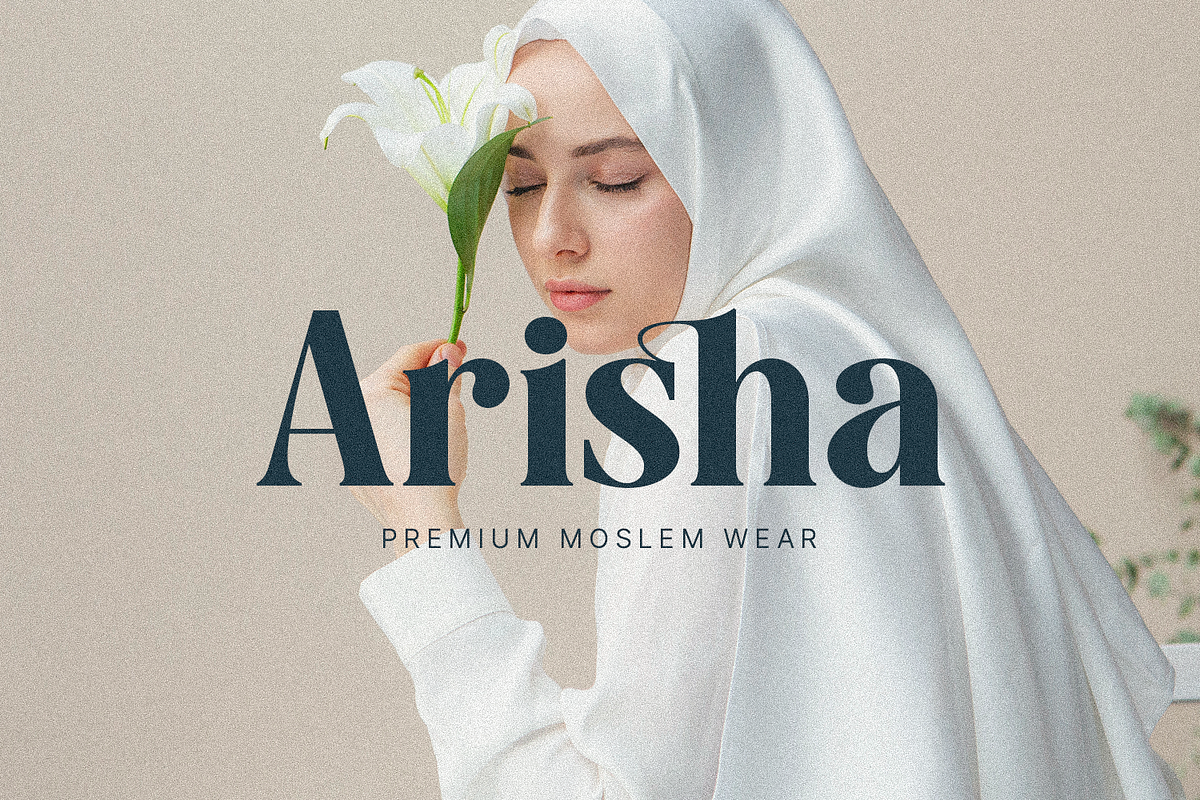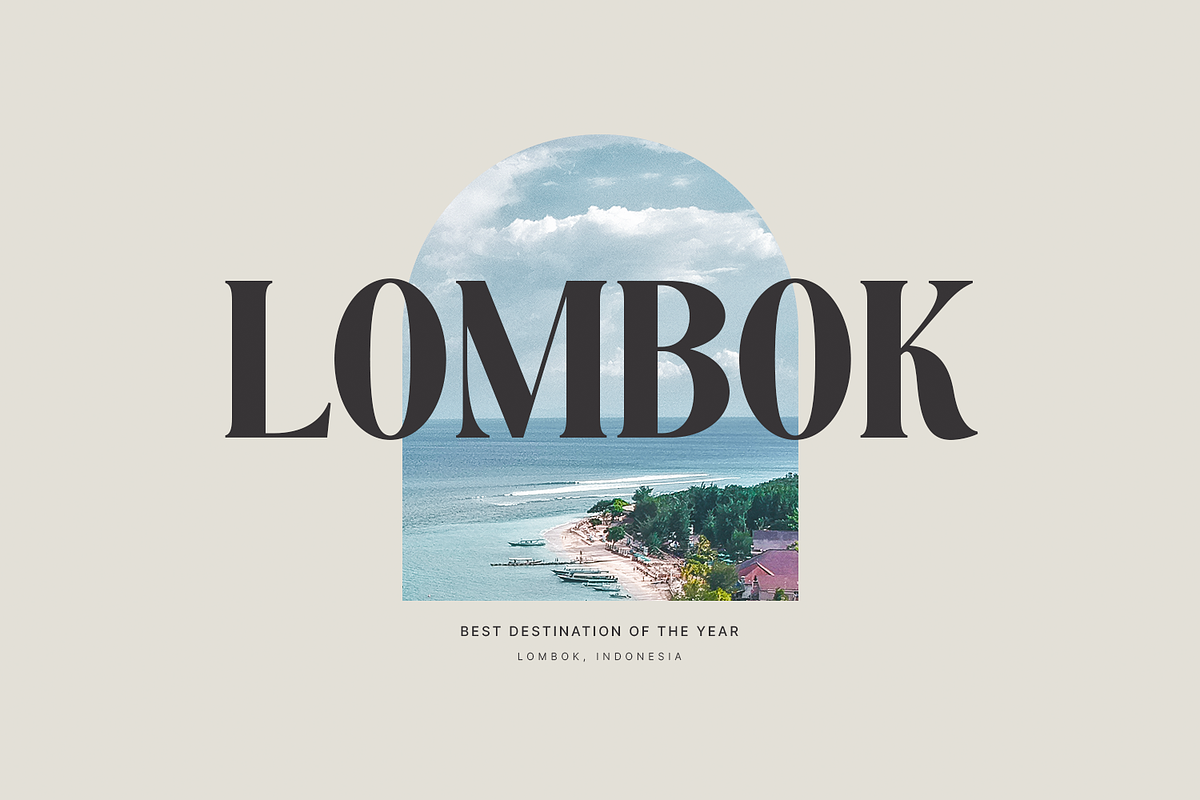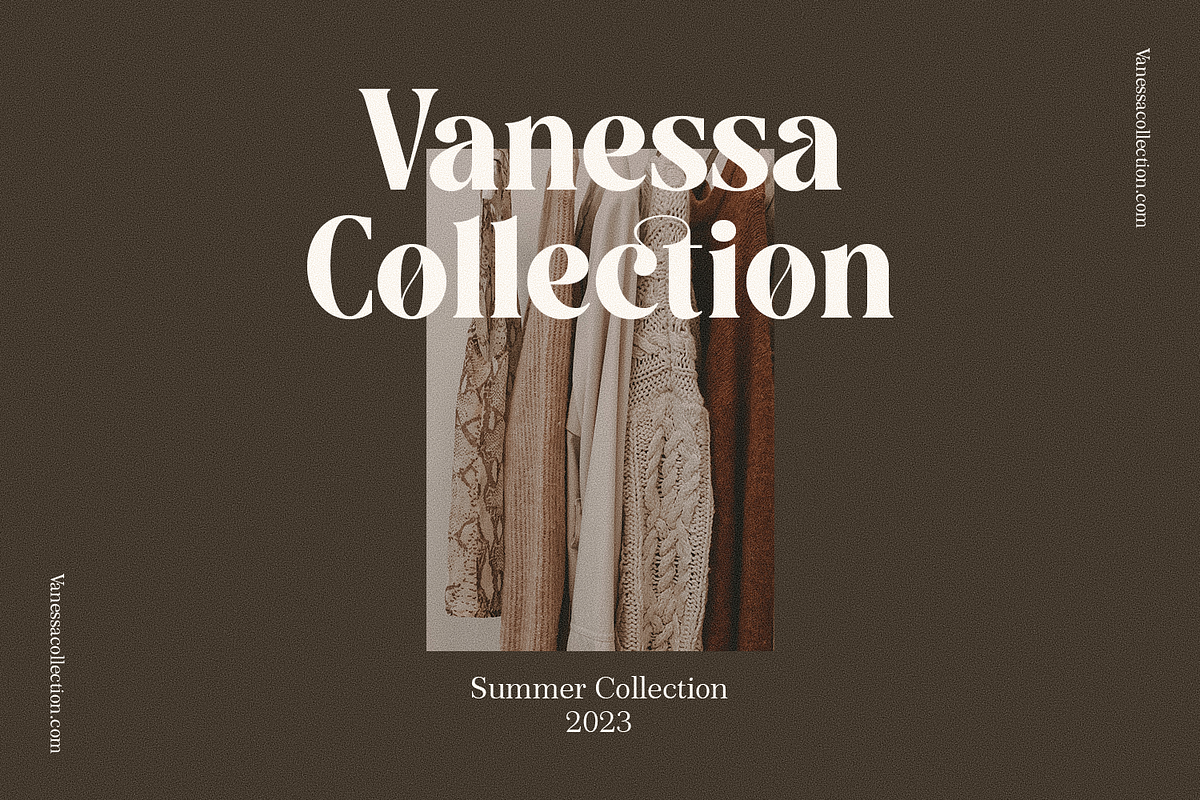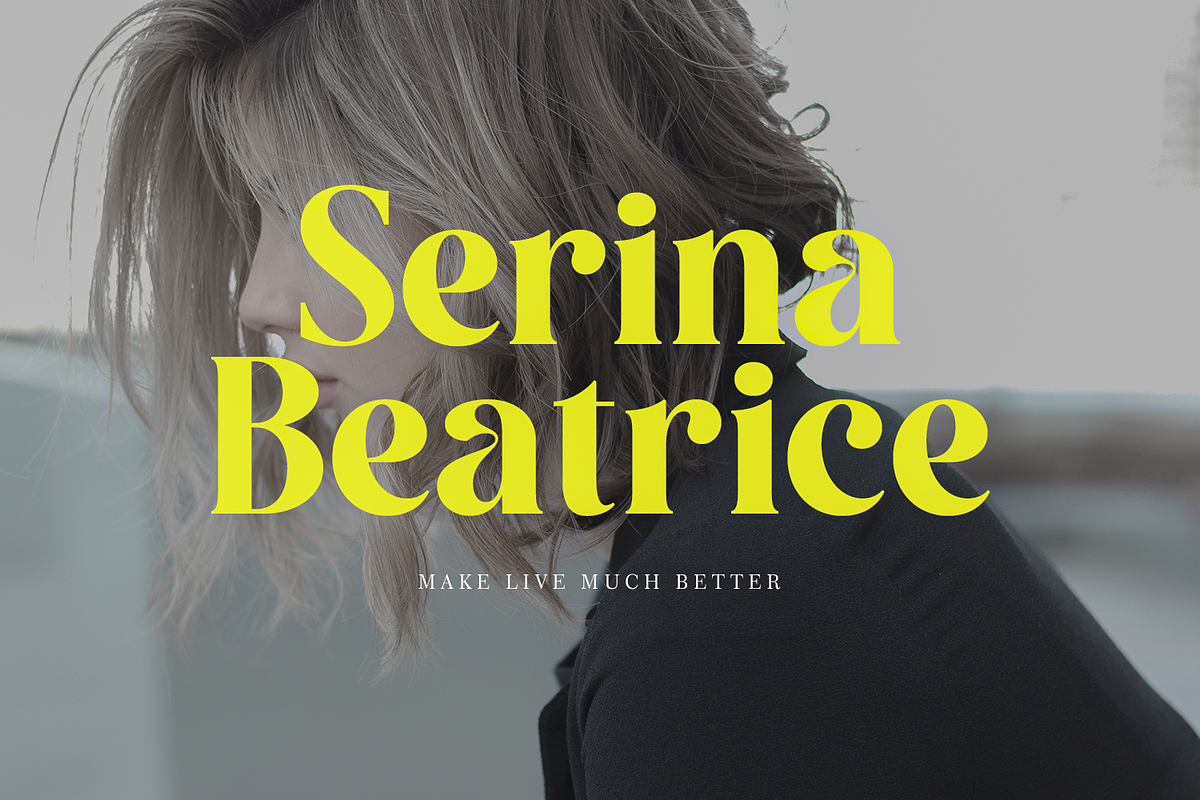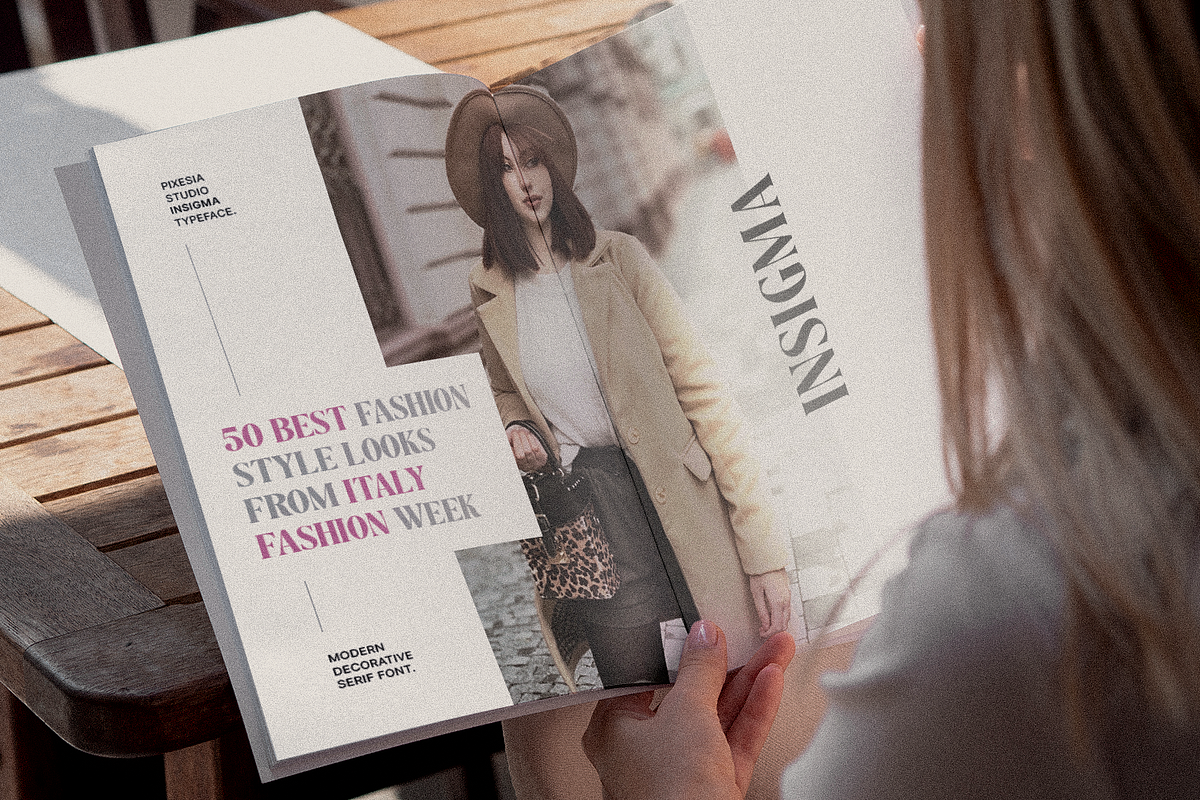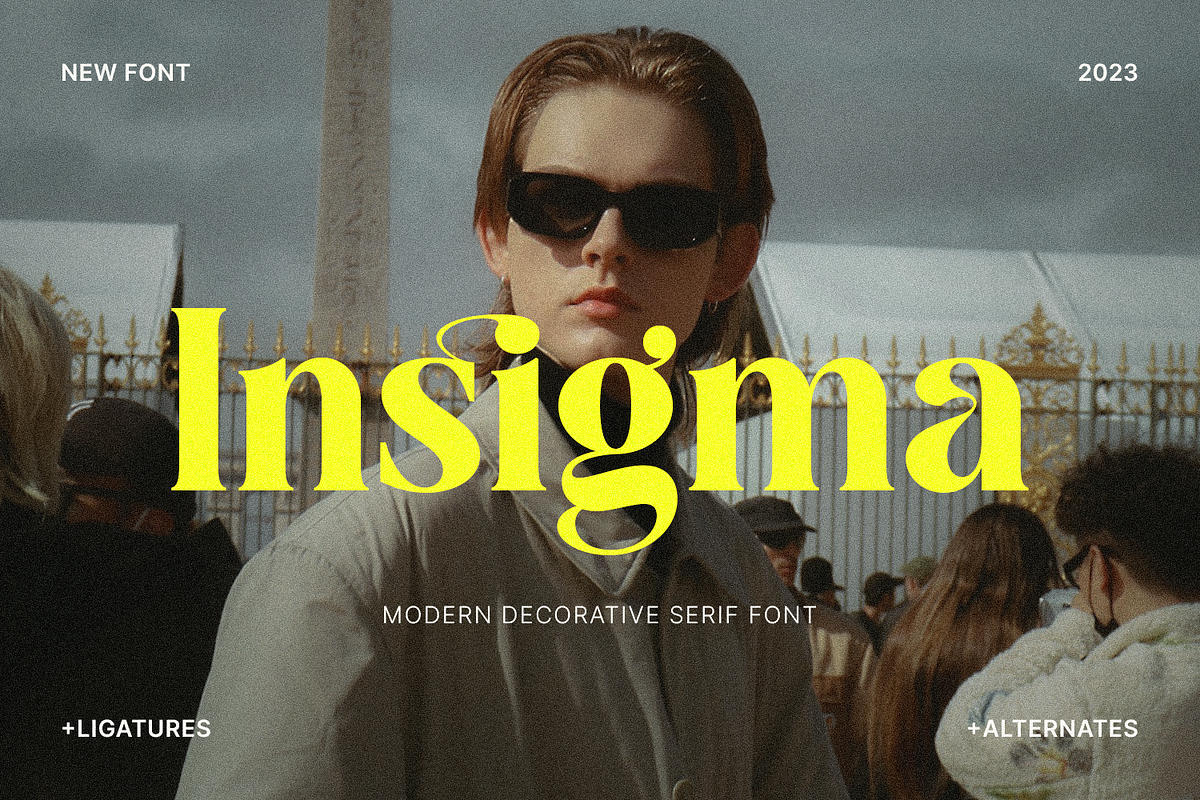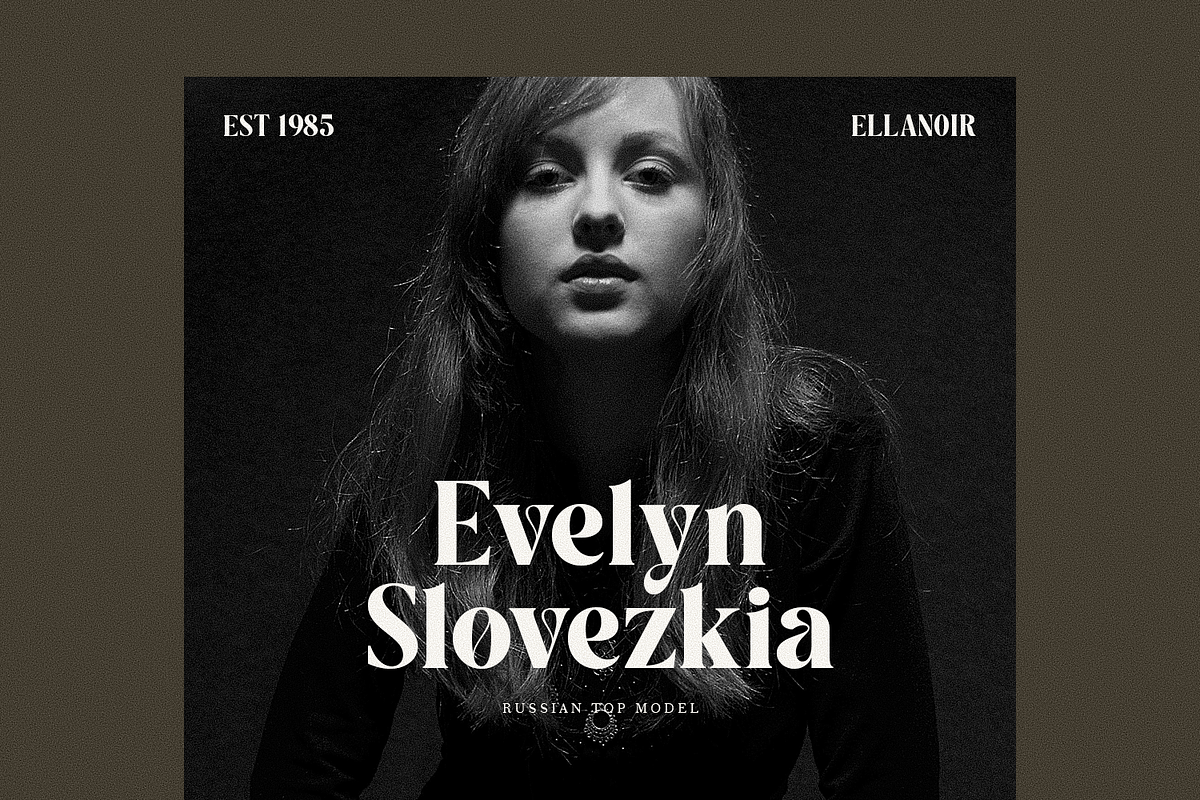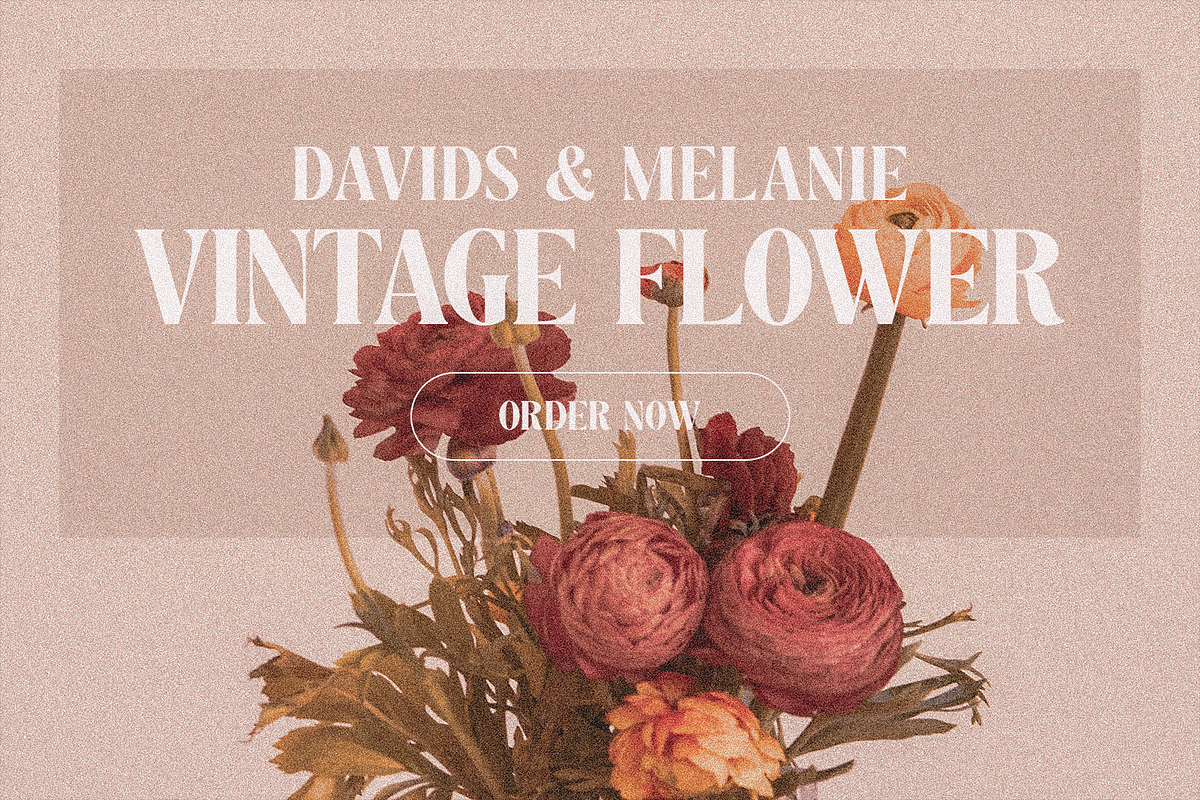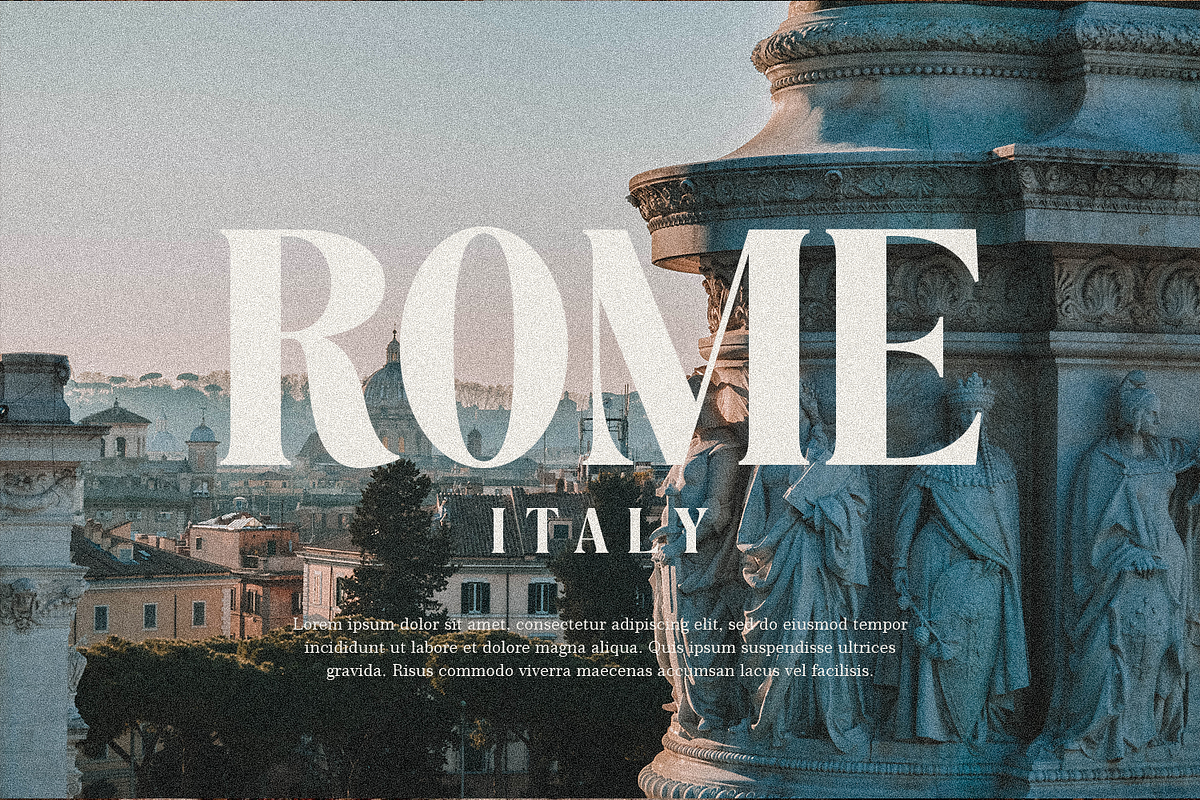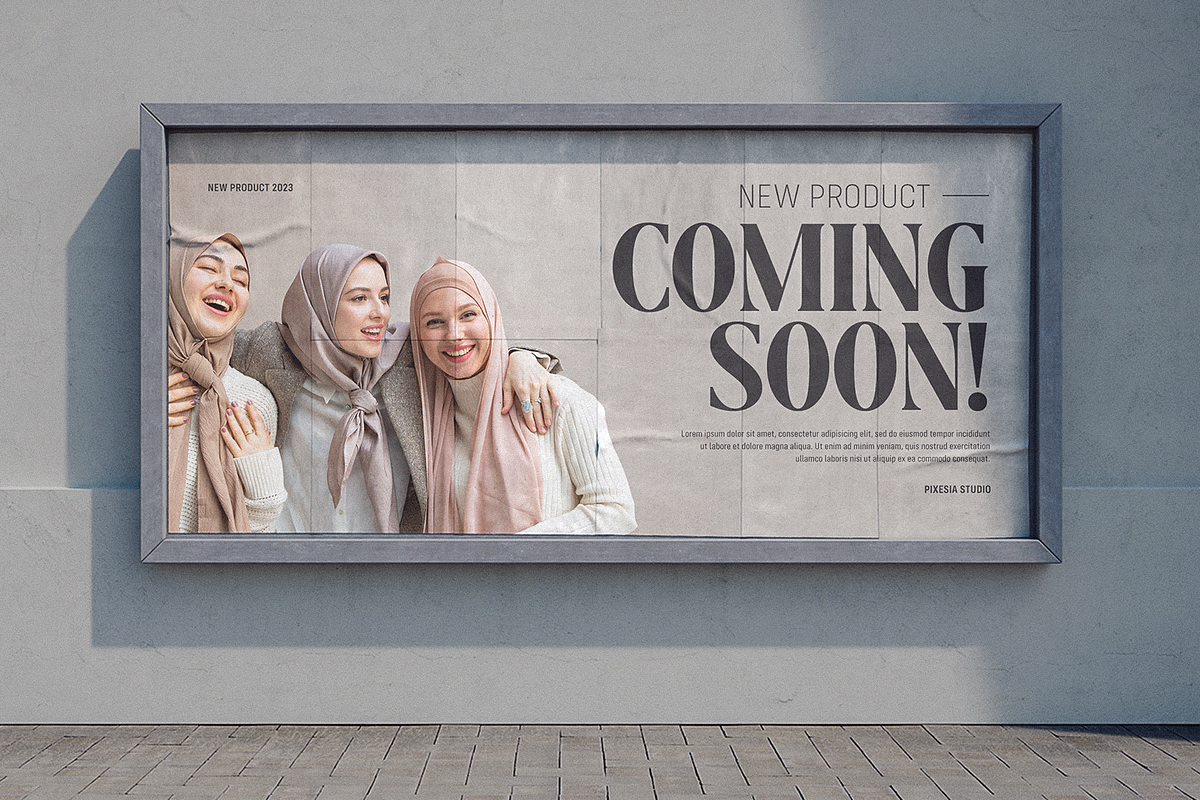
Insigma - Modern Decorative Serif
Introducing Insigma - Modern Decorative Serif
Insigma is a bold serif typeface characterized by high contrast and exceptional versatility, exuding elegance and sophistication in any design project. Its subtle vintage nuances add a touch of refined sophistication, making it the perfect choice for headlines, invitations, advertising, and more. With Insigma, designers can create captivating and visually stunning designs that stand out in today's competitive landscape. Its sleek and bold appearance is sure to elevate any project and make a lasting impression on the viewer.